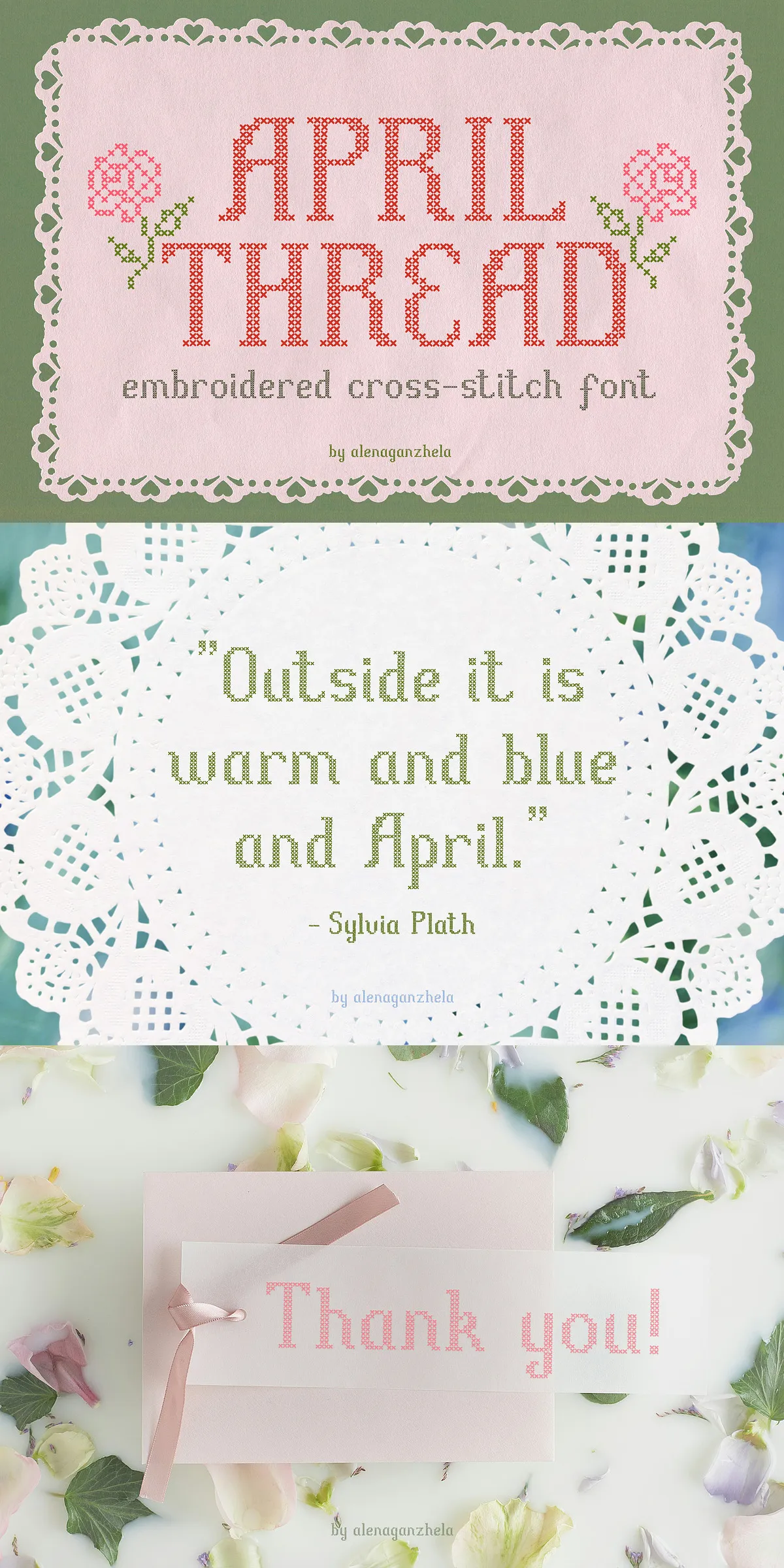
Introducing April Thread, a uniquely designed decorative cross-stitch font that captures the intricate beauty and heartfelt warmth of traditional handmade embroidery. This typeface is meticulously crafted to infuse your designs with a vintage sweetness, delicate stitched textures, and a soft, nostalgic character that feels both personal and authentic. Whether you are working on intimate personal projects or professional branding, April Thread provides a distinctive handcrafted touch that sets your work apart from generic digital typefaces.
This font goes beyond simple typography. It brings the artisanal spirit of needlework into the digital realm, allowing you to create designs that feel cozy, inviting, and deeply rooted in the charm of cottage-core aesthetics. The stitched texture of each letter adds a layer of visual interest that draws the eye and evokes feelings of comfort and creativity. By choosing April Thread, you are choosing a font that tells a story of patience, care, and traditional craftsmanship, making it an ideal choice for projects that require a gentle, feminine, and retro-inspired aesthetic.
Comprehensive Features and Included Extras
These graphic extras are carefully designed to match the cross-stitch theme, providing buttons, stitches, and decorative accents that can be used to enhance your layouts. They can be used to create borders, frame text, or add playful details to your designs. The inclusion of these extras allows you to create cohesive, coordinated designs with an embroidered look without needing to design additional elements from scratch. This is particularly useful for creating scrapbook pages, journaling entries, or complex layered designs.
The font itself includes a full set of uppercase and lowercase letters, numbers, and punctuation marks, ensuring that you have the necessary characters to spell out any message. The careful design of each character ensures that the stitched effect is consistent and visually pleasing, maintaining the integrity of the handcrafted theme throughout your text. The bonus cross-stitch graphic extras further expand your creative possibilities, allowing you to mix and match elements to create unique and eye-catching compositions.
Perfect Applications for April Thread
The versatility of April Thread makes it suitable for a wide variety of design applications. Its romantic and vintage appeal makes it an excellent choice for romantic branding and cottage-inspired visuals. Imagine using this font for a boutique florist, a handmade soap brand, or a cozy café. The soft, stitched look adds a layer of warmth and authenticity that resonates with customers who appreciate artisanal and handcrafted products.
April Thread is also perfect for scrapbook layouts and journaling. The cross-stitch texture mimics the look of handwritten notes and embroidered patches, making it ideal for preserving memories and documenting life’s special moments. Use it to create personalized albums, bullet journals, or creative diary entries. The font’s delicate nature adds a touch of elegance and nostalgia to these personal projects, making them feel even more special and cherished.
Additionally, this font is great for greeting cards and invitations. Whether you are designing cards for birthdays, weddings, baby showers, or seasonal holidays like Easter and Christmas, April Thread brings a sweet, handmade feel that conveys warmth and affection. It is also well-suited for product packaging, especially for artisanal goods, baked treats, or DIY kits. The font’s charm can make your packaging stand out on shelves and attract customers who value quality and craftsmanship.
Seasonal designs are another area where April Thread shines. Its soft, nostalgic character makes it perfect for spring themes, summer festivals, and even cozy winter compositions. You can use it to create social media graphics, flyers, and posters that capture the essence of the season. The font’s versatility allows it to adapt to various color palettes and design styles, making it a valuable addition to your creative toolkit year-round.
Why Choose April Thread for Your Designs?
In a world saturated with digital fonts, April Thread offers a refreshing departure from the ordinary. It brings the soul and spirit of handmade crafts into your digital designs, creating a connection with the viewer that feels personal and genuine. The stitched texture and vintage sweetness of the font evoke a sense of nostalgia and comfort, making your designs more engaging and memorable.
The inclusion of 17 graphic extras provides additional value, allowing you to create more complex and visually appealing designs without extra effort. These extras ensure that your projects have a cohesive look and feel, with every element working together to create a harmonious whole. This is particularly beneficial for beginners or designers who want to save time while still achieving professional results.